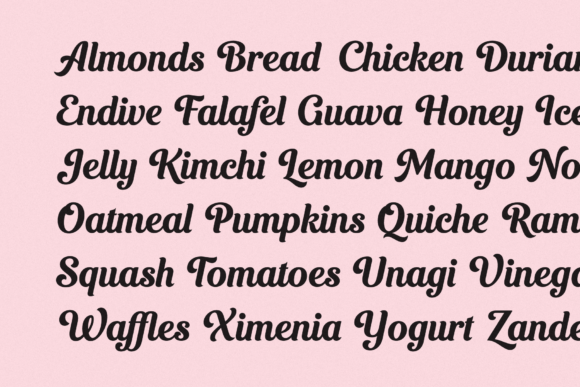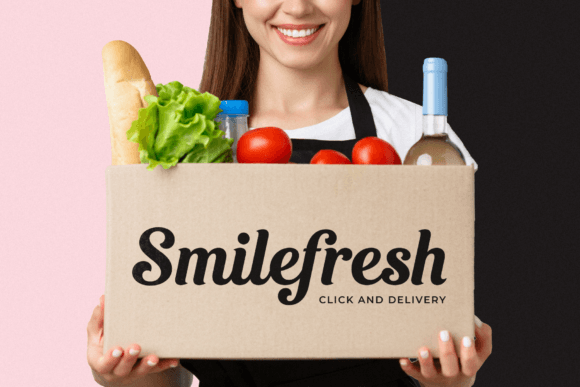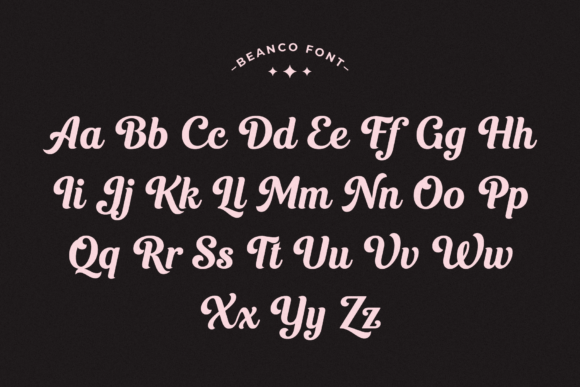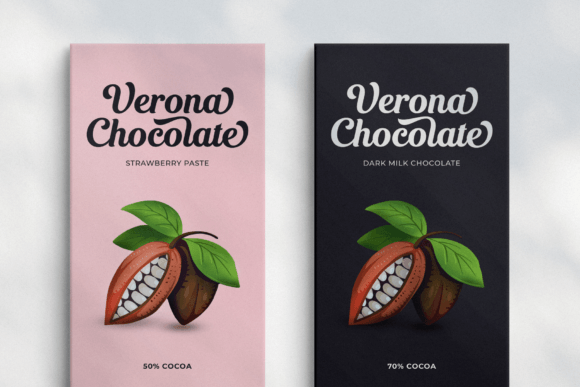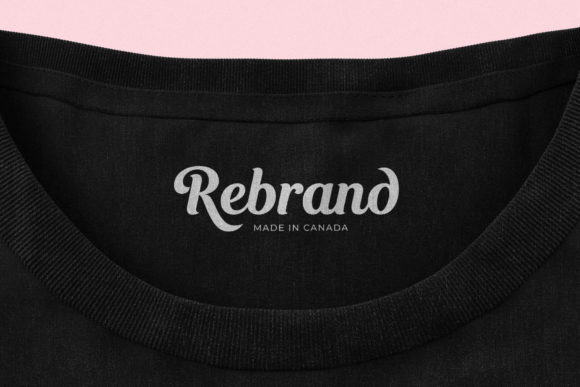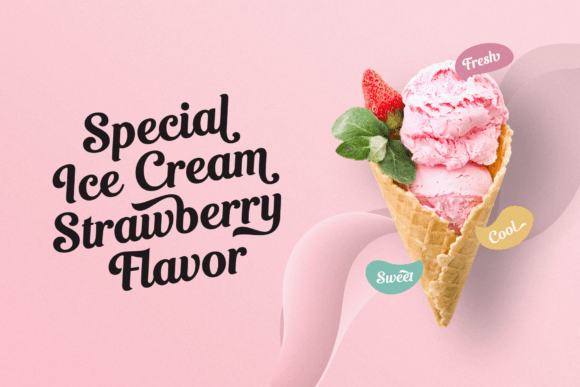
Introducing Beanco Font: Elevate Your Designs with Elegance and Sophistication
In the world of typography, few fonts manage to capture the essence of elegance and sophistication as effortlessly as Beanco. This stunning script font has been making waves in the design community, and for good reason. Beanco is a stylish and incredibly elegant script font that can instantly elevate your designs, adding a touch of refinement and luxury. Whether you’re working on wedding invitations, thank you cards, quotes, greeting cards, logos, business cards, or any other design that needs a handwritten touch, Beanco is the perfect choice.
The Characteristics of Beanco Font
So, what makes Beanco stand out from the crowd? Here are a few key characteristics that set this font apart:
- Elegant and Refined: Beanco boasts a sleek and sophisticated design, perfect for creating high-end visuals that exude luxury and refinement.
- Handwritten Touch: With its fluid strokes and natural flow, Beanco adds a warm, personal touch to any design, making it ideal for projects that require a more human feel.
- Versatile: Beanco is incredibly versatile, suitable for a wide range of design applications, from wedding invitations and greeting cards to logos and business cards.
- Easy to Read: Despite its elegant nature, Beanco remains easy to read, ensuring that your message is conveyed clearly and effectively.
Uses of Beanco Font
Beanco’s versatility is one of its greatest strengths. Here are some of the many ways you can use this beautiful font in your designs:
- Wedding Invitations: Add a touch of romance and sophistication to your wedding invitations with Beanco. Its elegant design is sure to set the tone for a memorable and stylish wedding.
- Thank You Cards: Express your gratitude in style with Beanco. This font is perfect for creating heartfelt, handwritten-style thank you cards that will leave a lasting impression.
- Quotes and Inspirational Messages: Beanco is a great choice for showcasing inspirational quotes and messages. Its elegant design adds a touch of sophistication to any quote, making it perfect for social media posts, blogs, and more.
- Greeting Cards: From birthday cards to holiday greetings, Beanco is the perfect font for creating beautiful, eye-catching greeting cards.
- Logos and Branding: If you’re looking for a font that will help you establish a luxurious brand identity, Beanco is an excellent choice. Its elegant design is sure to make your logo stand out.
- Business Cards: Make a lasting impression with Beanco. This font is perfect for creating stylish, professional business cards that will help you stand out in a crowded industry.
Tips for Using Beanco Font Effectively
To get the most out of Beanco, here are a few tips to keep in mind:
- Pair with Simple Fonts: Beanco is a statement font, so it’s best to pair it with simpler fonts to avoid visual overload.
- Use it Sparingly: While Beanco is a beautiful font, it can be overwhelming if used excessively. Use it sparingly to add emphasis and create visual interest.
- Experiment with Colors: Beanco looks stunning in a variety of colors, so don’t be afraid to experiment and find the perfect hue for your design.
In conclusion, Beanco is a truly exceptional script font that can elevate your designs to new heights. Its elegant and refined design, combined with its versatility and ease of use, make it a must-have for designers and crafters. Whether you’re working on a wedding invitation, a logo, or a business card, Beanco is the perfect choice for adding a touch of sophistication and luxury. So why wait? Download Beanco today and start creating stunning designs that will leave a lasting impression.